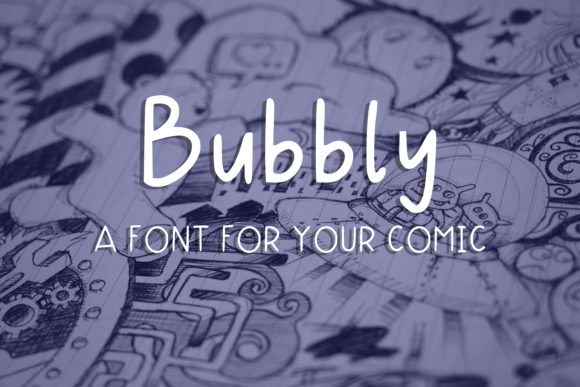
The Bubbly Font: A Sweet and Friendly Companion for Your Design Journey
I’ll never forget the moment I stumbled upon the Bubbly font. I was working on a project for a client’s birthday party invitations, and I was struggling to find the perfect font that captured the playful and whimsical vibe they wanted. As I scrolled through my font library, I came across Bubbly, and it was love at first sight! ✨ Its sweet and friendly handwritten style instantly resonated with the project’s theme, and I knew I had found the perfect match.
As I started working with Bubbly, I fell in love with its natural and unique style. Here are a few things that make it stand out:
• ✅ Versatility: Bubbly’s adaptability is one of its strongest suits. It can be used for a wide range of designs, from party invitations to branding materials, and even social media graphics.
• ✨ Unique character: The font’s handwritten style gives it a personal touch that’s hard to find in more traditional fonts.
• ✅ Ease of use: Bubbly is incredibly easy to read and works well in various sizes, making it perfect for both digital and print designs.
Of course, no font is perfect, and Bubbly has a few quirks to keep in mind:
• 🤔 Kerning issues: As with many handwritten fonts, kerning can be a bit tricky. Be sure to adjust the spacing between letters to ensure optimal readability.
• ⚠️ Limited formal use: Bubbly’s playful style may not be the best fit for more formal designs, such as corporate branding or official documents.
The Story Behind Bubbly: A Designer Inspiration
Bubbly was designed with the intention of creating a font that would bring a smile to people’s faces. Its creator, a talented type designer, wanted to craft a font that would be both fun and elegant, with a unique character that would make it stand out from more traditional fonts. The result is a font that’s perfect for designers who want to add a touch of whimsy to their work.
Q: What makes Bubbly a good choice for designs?
A: Bubbly’s unique, handwritten style and versatility make it an excellent choice for a wide range of designs, from party invitations to branding materials.
Q: Is Bubbly suitable for body text?
A: While Bubbly is easy to read, it’s best suited for headings and titles. For body text, you may want to choose a more traditional font for optimal readability.